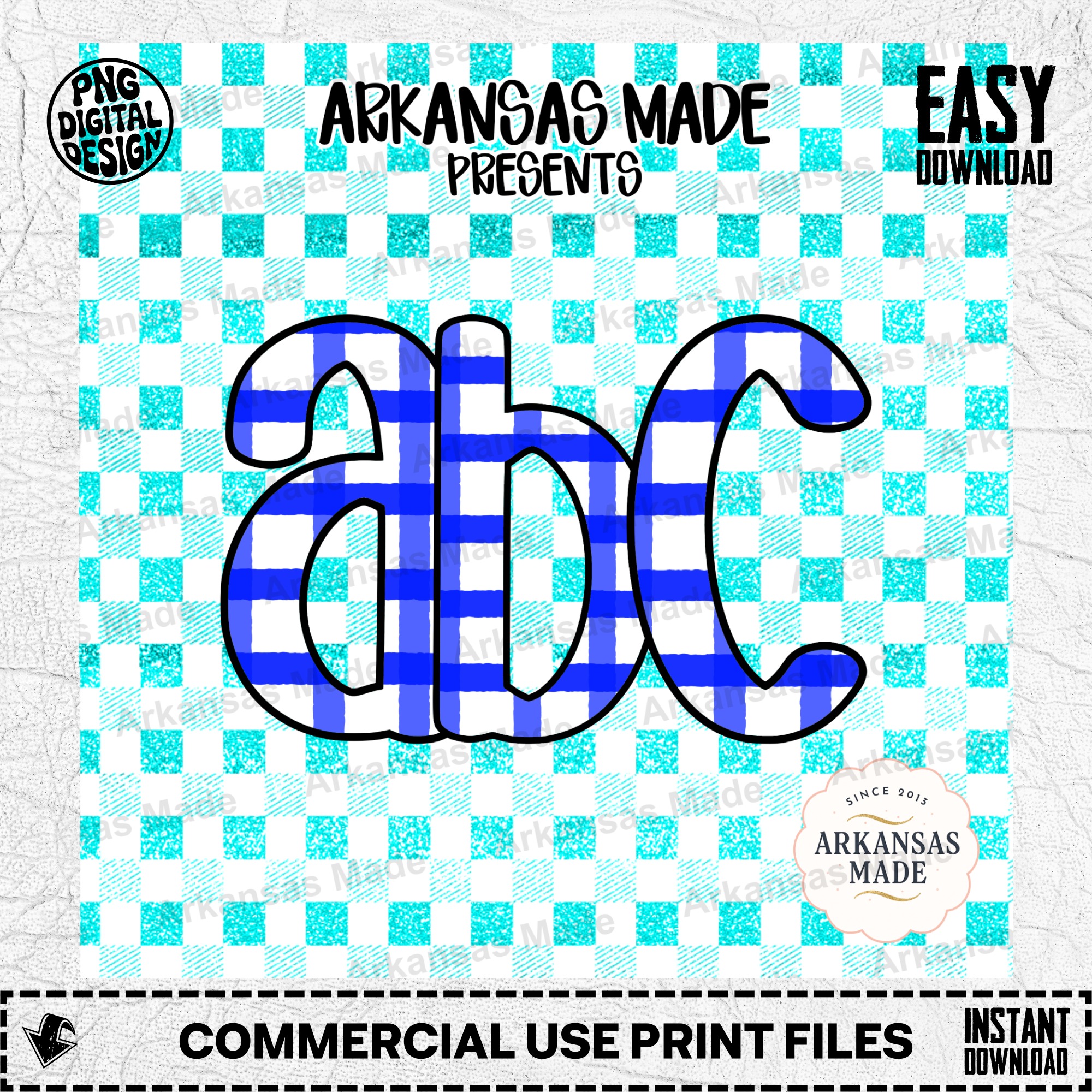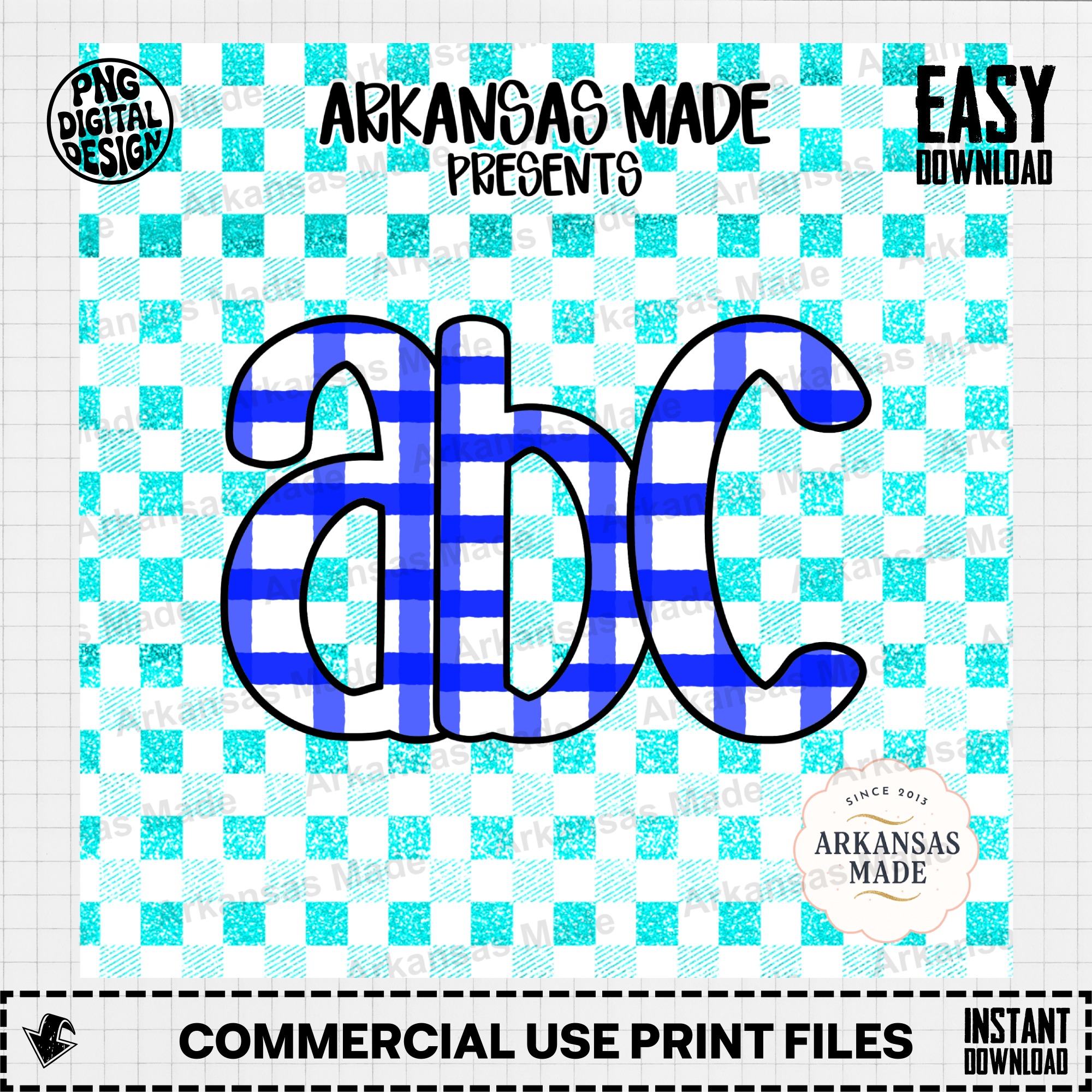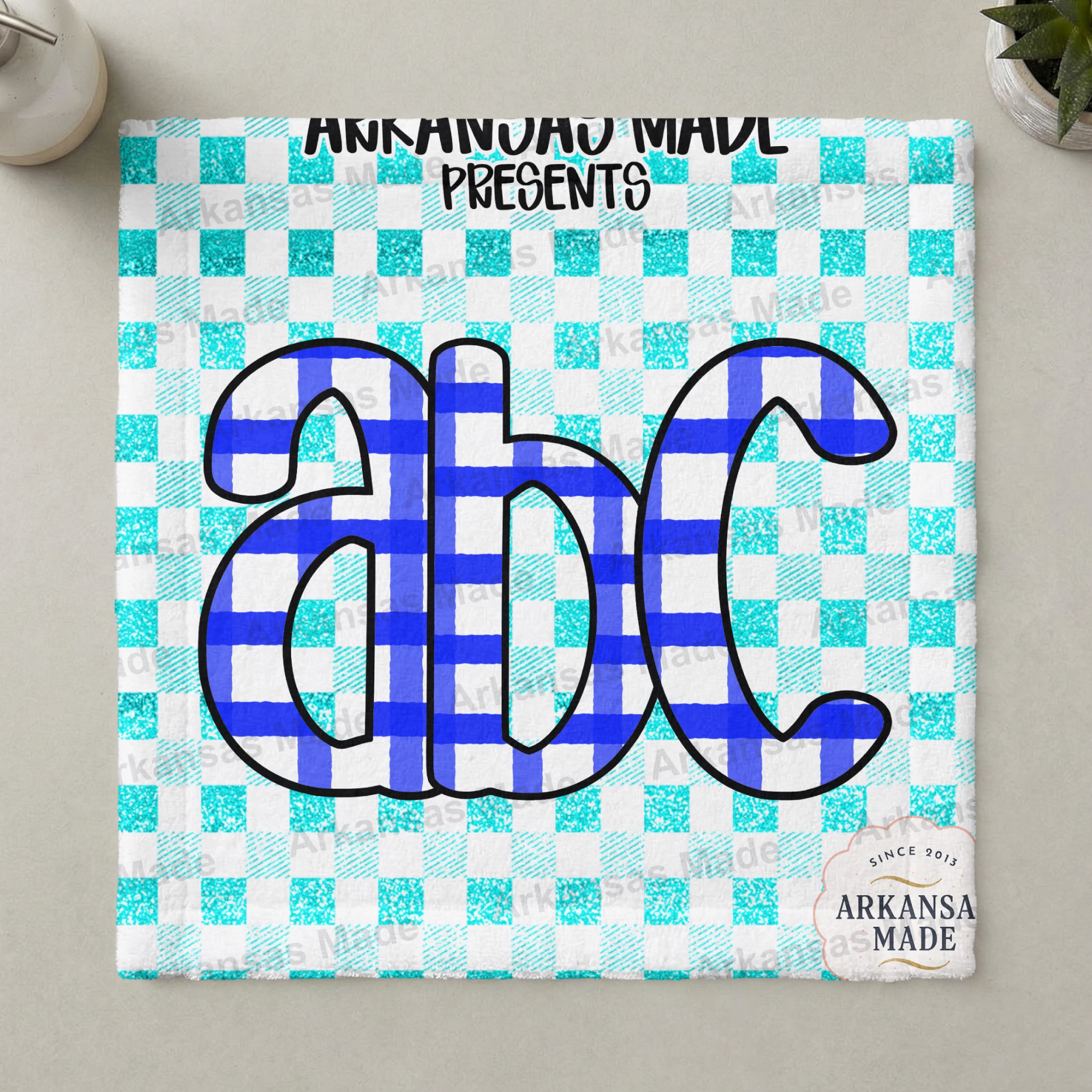
Blue Gingham Alphabet PNG Letters Digital Download Alpha Set, Plaid Checkered Font SVG, Teacher Back to School Craft Design
Elevate your projects with this charming Blue Gingham Alphabet Digital Download Alpha Set! Perfect for crafters, teachers, and DIY enthusiasts. Capture a cozy, preppy, or rustic farmhouse vibe with these plaid checkered letters, featuring a classic printed effect. Ideal for personalizing nursery decor, school supplies, or creating unique invitations and t-shirt designs. A versatile digital asset for all your creative endeavors, from sublimation to Cricut projects, adding a touch of classic charm to any design.